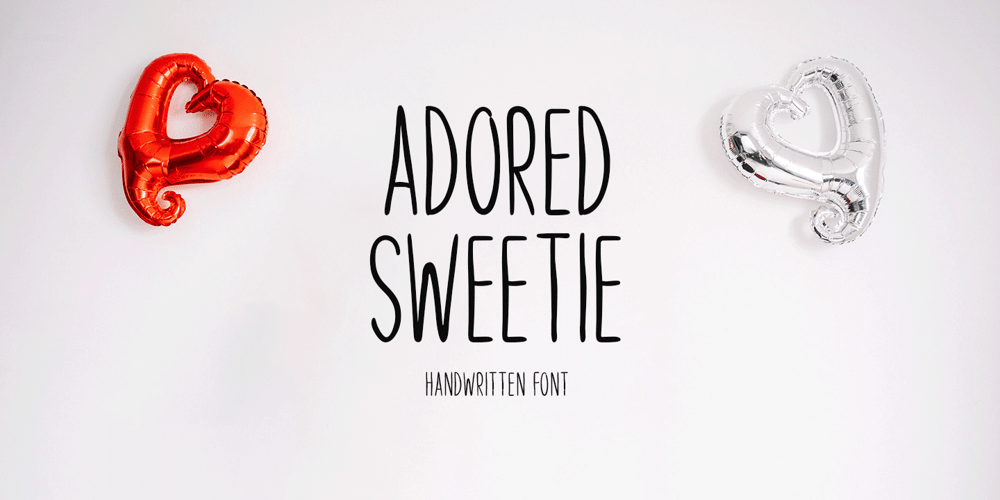
Adored Sweetie
Adored Sweetie font
Adored Sweetie Font Family was designed by Md Shohail Bhuian and published by Seemly Fonts. Adored Sweetie contains 1 styles and family package options. With its delightful handwritten style, Adored Sweetie brings a touch of warmth and personality to your projects. Whether you’re crafting invitations, posters, or digital designs, this font adds a distinctive flair that sets your creations apart.